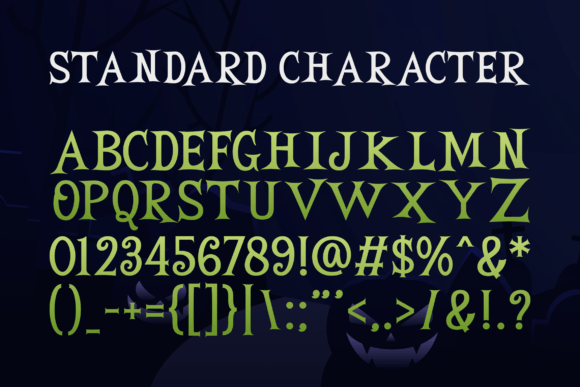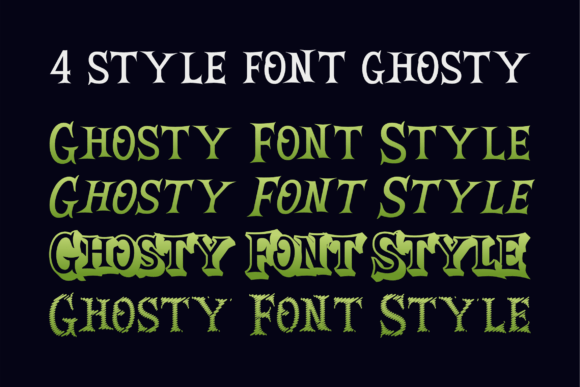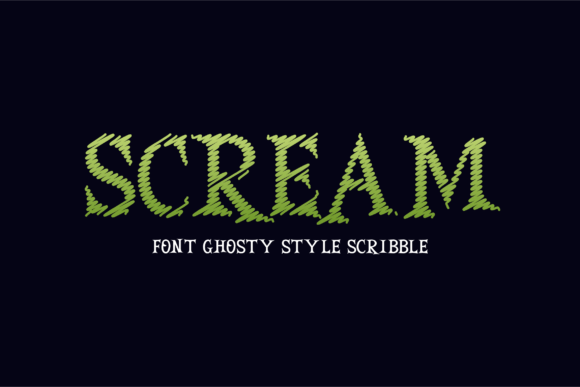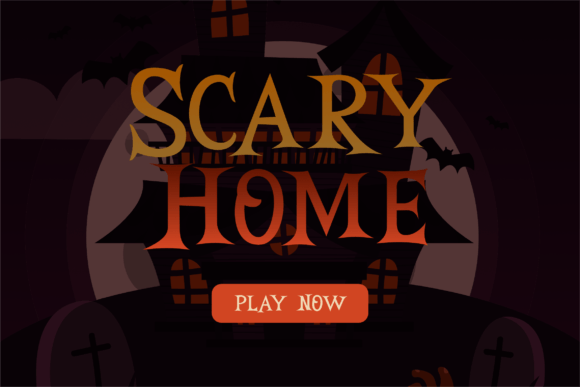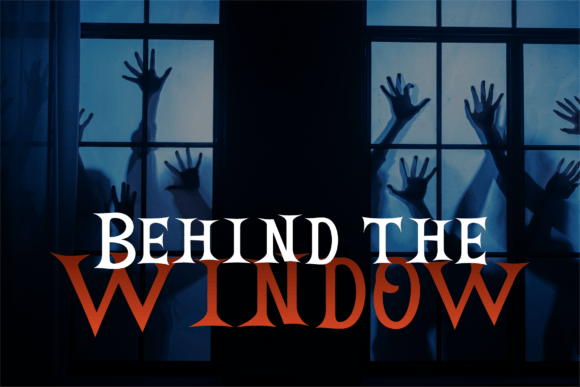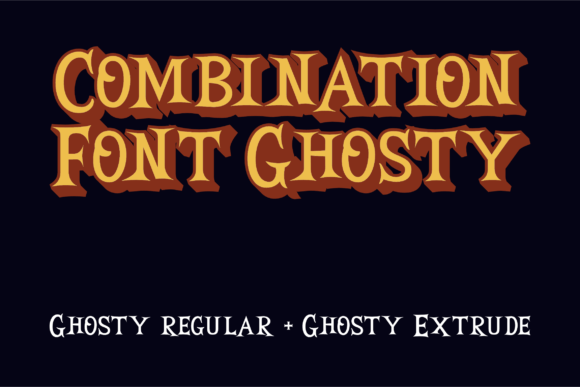
Unleash the Spook: Discover the Eerie Charm of Ghosty Font
Are you on the hunt for a font that sends shivers down the spine? Look no further than Ghosty Font, a spine-tingling typeface that embodies the essence of horror and mystery. This eerie font is perfect for designers and crafters seeking to add a touch of the macabre to their projects, from Halloween-themed events to fashion and apparel designs.
The Haunting Features of Ghosty Font
Ghosty Font is a masterfully crafted typeface that exudes a sense of spookiness and mystery. Its classic design makes it an excellent choice for those looking to evoke a sense of nostalgia and timelessness in their work. The font’s horror elements are sure to send chills down the spine, making it an ideal selection for projects that require a bold and eerie aesthetic.
What Makes Ghosty Font So Versatile?
One of the standout features of Ghosty Font is its versatility. This font can be used for a wide range of projects, including:
- Events: Add a touch of horror to your event branding, invitations, and promotional materials.
- Halloween-themed projects: Create spooky and eye-catching designs for the spookiest night of the year.
- Fashion and apparel: Design bold and eye-catching logos, slogans, and typography for clothing and accessories.
- Signature and logo design: Create a lasting impression with a custom signature or logo that exudes mystery and horror.
- Album covers: Give your music a haunting and eerie feel with Ghosty Font.
- Branding and magazine design: Add a touch of sophistication and horror to your brand’s visual identity.
- Social media and advertisements: Stand out from the crowd with bold and eye-catching typography.
Why Designers and Crafters Love Ghosty Font
Ghosty Font has quickly become a favorite among designers and crafters due to its unique blend of spookiness and versatility. Here are just a few reasons why:
- Ease of use: Ghosty Font is incredibly easy to use, making it accessible to designers and crafters of all skill levels.
- High-quality design: The font is meticulously crafted to ensure that it looks great in any context.
- Customization: With Ghosty Font, you can experiment with different styles, sizes, and colors to create a unique look that suits your project.
Tips and Tricks for Using Ghosty Font
To get the most out of Ghosty Font, here are a few tips and tricks to keep in mind:
- Experiment with different sizes: Ghosty Font looks great in large and small sizes, so don’t be afraid to experiment with different sizes to find the perfect fit for your project.
- Pair it with other fonts: Combine Ghosty Font with other fonts to create a unique and eye-catching typography.
- Play with colors: Try out different colors and gradients to add an extra layer of depth and interest to your design.
- Use it sparingly: While Ghosty Font is incredibly versatile, it can be overwhelming if overused. Use it sparingly to create a lasting impact.
| Font Name | Ghosty Font |
Ghosty Font is a game-changer for designers and crafters seeking to add a touch of horror and mystery to their projects. With its versatile design, ease of use, and high-quality craftsmanship, it’s the perfect choice for a wide range of applications. Whether you’re working on a Halloween-themed project or simply want to add a touch of spookiness to your design, Ghosty Font is sure to deliver. So why wait? Unleash the spook and discover the eerie charm of Ghosty Font today!